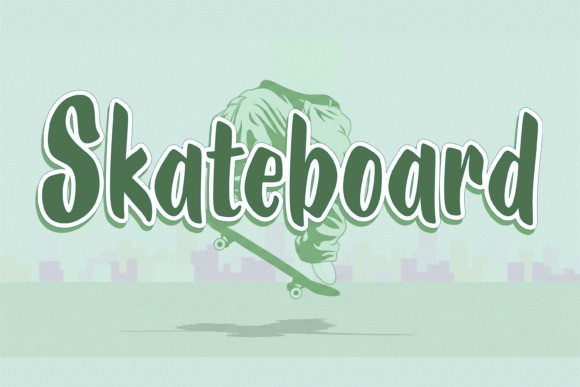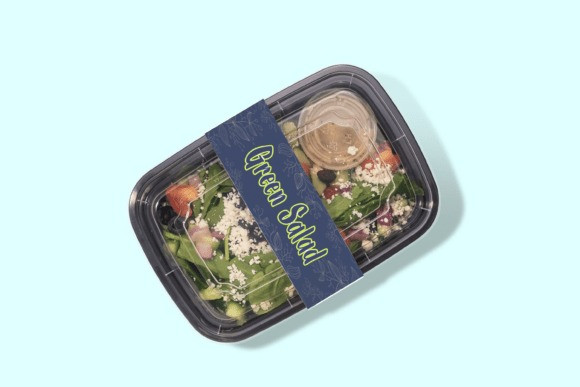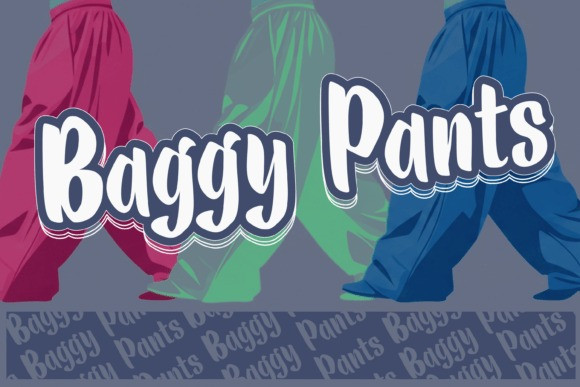
Baggy Pants Font
Baggy Pants Font a bold and playful display typeface that brings a powerful, energetic, and distinctively retro-hip-hop vibe to your projects.The Baggy Pants font is a chunky, rounded, and highly stylized sans-serif typeface, designed to grab attention with its immense presence and cartoon-like outlines. Its outstanding feature is the layered, shadowed, and wavy contour effect, which gives the typeface a dynamic, three-dimensional feel, reminiscent of classic urban graffiti or bold, 90s-era branding.
This versatile Baggy Pants typeface is a statement maker, perfect for projects that demand high energy and a fun, modern edge. It’s a fantastic choice for apparel designs, streetwear branding, video game titles, energetic posters, children’s books, or any headline needing a bold, bubbly personality.
The Baggy Pants font is structured with clear, legible letterforms, even with its decorative layering, making it an excellent choice for display use where impact is key.